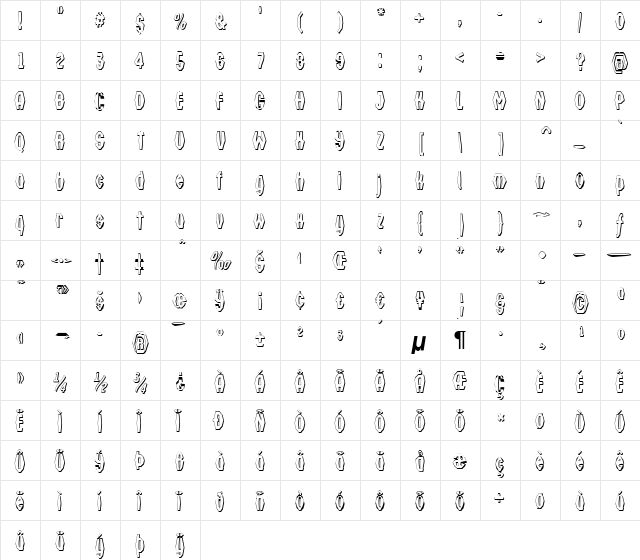
a_Technics3DFsy DemiBold
| Designer | W.Chufarofsky & M.Slutsker |
Design Context for a_Technics3DFsy Typeface
a_Technics3DFsy has a distinctly futuristic character, with geometric precision and clean angles that feel at home in technology, gaming, and sci-fi contexts. The heavy weight commands attention and anchors typographic hierarchies.